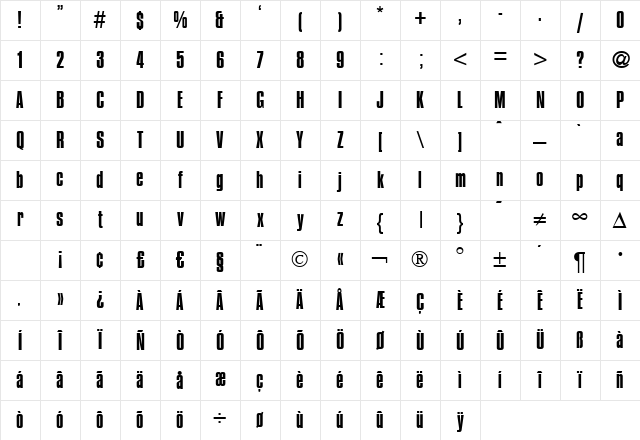
Compressed Regular
Design Context for Compressed
Compressed is a composed and adaptable typeface that performs quietly and consistently across a wide range of design contexts.
Pro Tip: Use Compressed in both headline and body roles to test its range before committing to a single application.